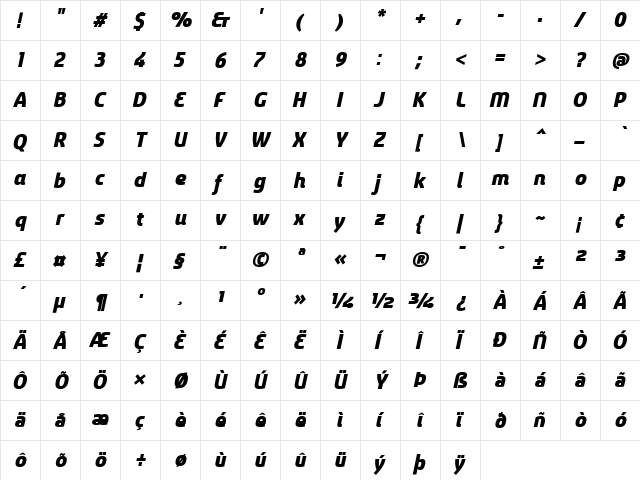
Sancoale Black Italic Font Preview
Sancoale Black Italic
Sancoale Black Italic Font Details
| Style | Black Italic |
| Foundry | Jeremy Dooley |
Design Context for Sancoale Typeface
Sancoale offers clean, dependable letterforms without strong stylistic allegiance, making it a practical choice for designers who need flexibility. Its italic angle brings a sense of urgency and motion to the letterforms.
Pro Tip: Use Sancoale for emphasis, pull quotes, and subheadings where its slanted energy can add rhythm to the layout.